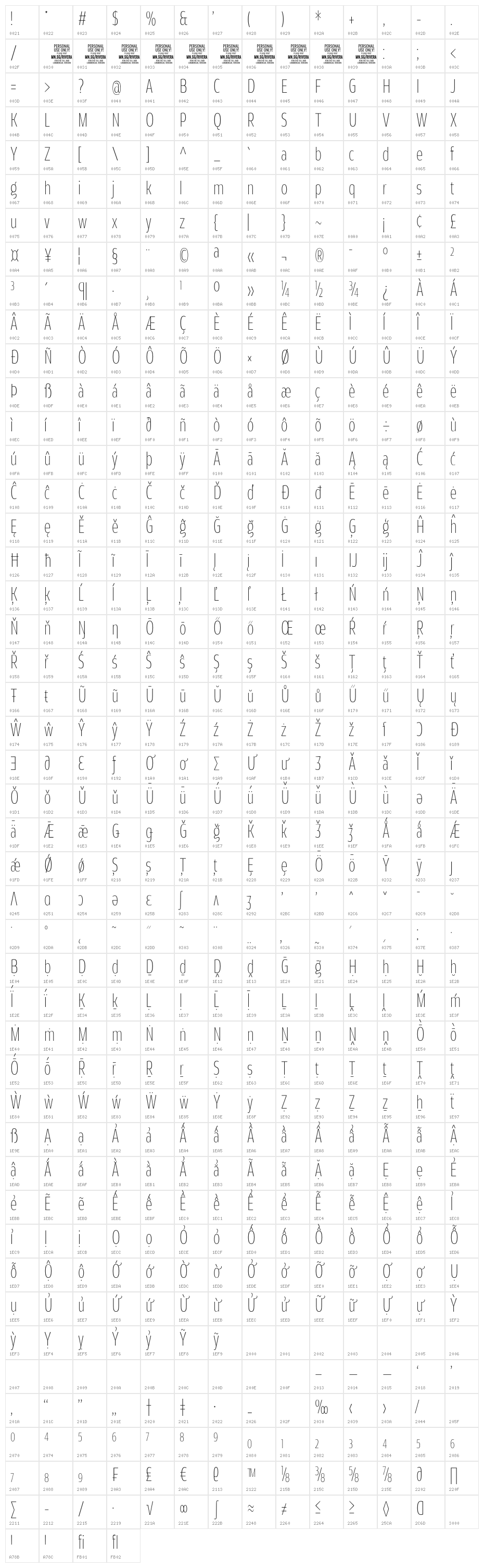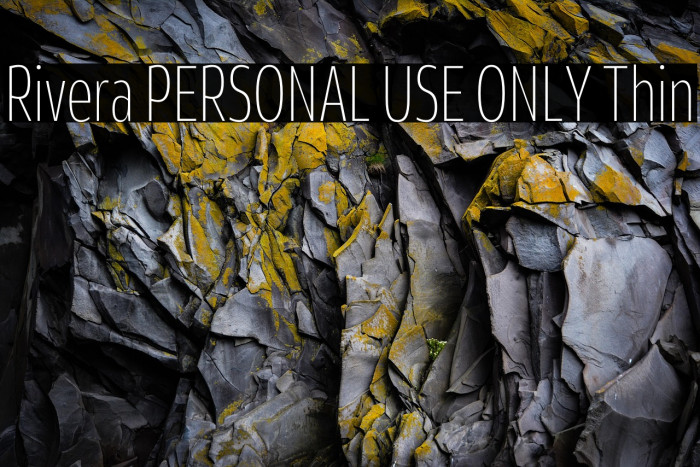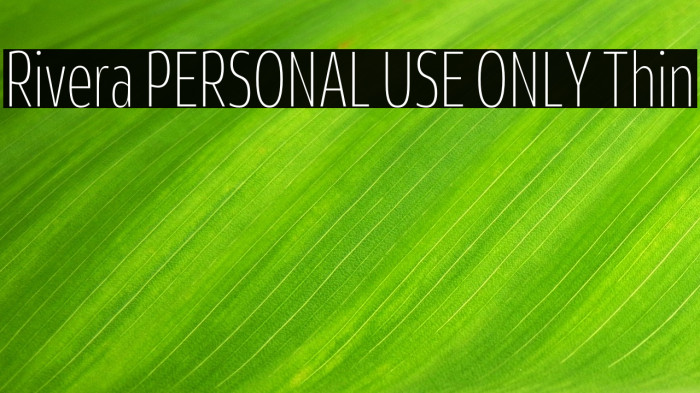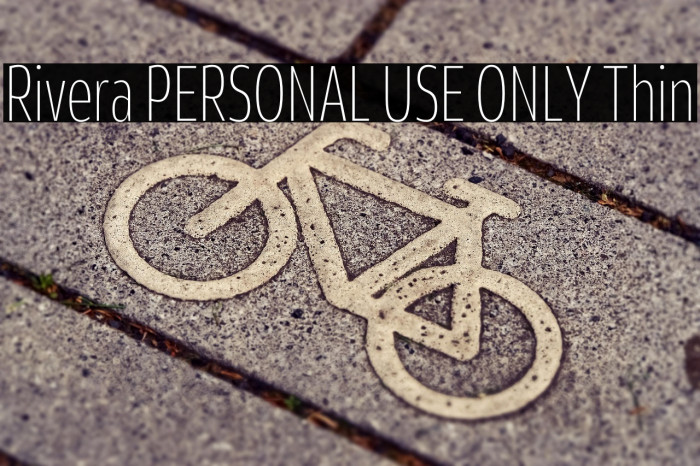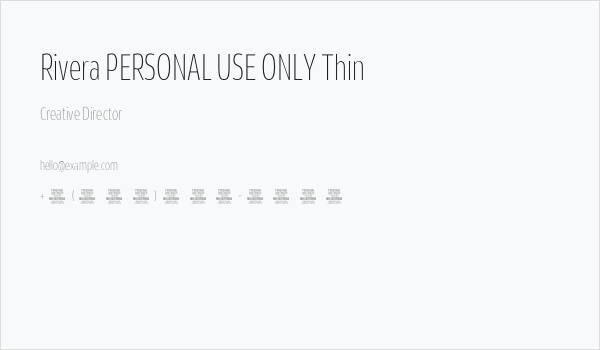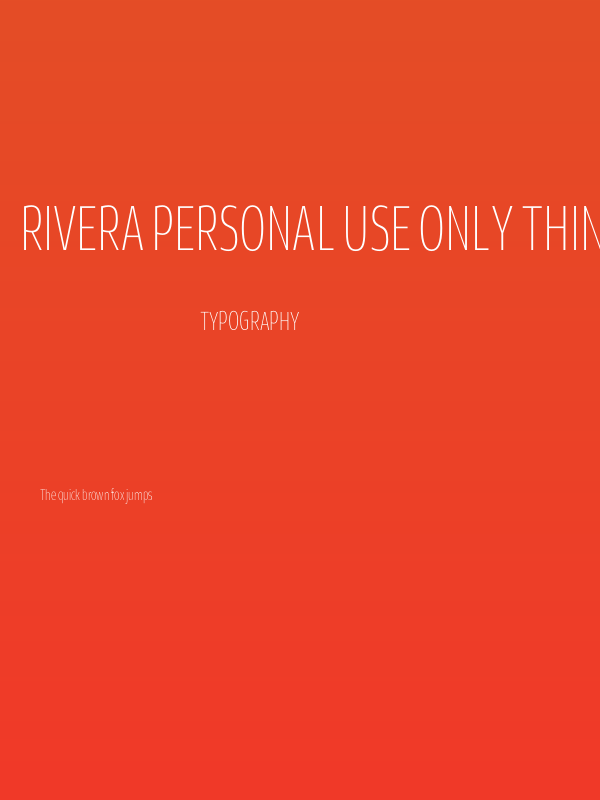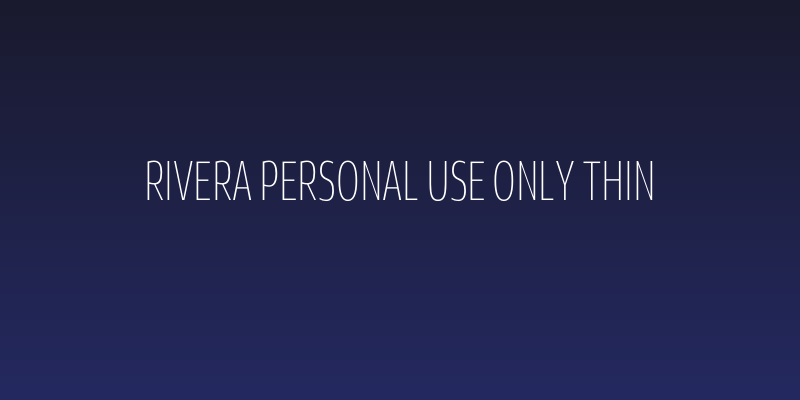
Rivera PERSONAL USE ONLY Thin Font
Rivera PERSONAL USE ONLY Thin Description
This font features a sleek and modern design with thin, elongated letterforms that convey a sense of elegance and sophistication. The characters are uniformly narrow, creating a streamlined appearance that is both contemporary and stylish. The uppercase and lowercase letters maintain a consistent height and width, enhancing readability while preserving a minimalist aesthetic. The numerals and special characters are designed to complement the overall style, with clean lines and a balanced structure. This font's simplicity and clarity make it suitable for a wide range of design applications, from digital to print media.
| Proposed Projects | Ideal for modern branding, editorial design, minimalist posters, and digital interfaces. |